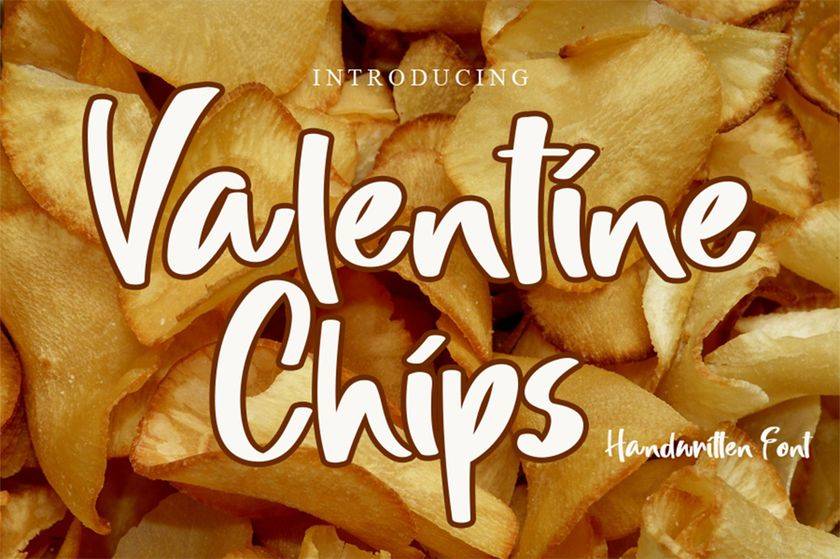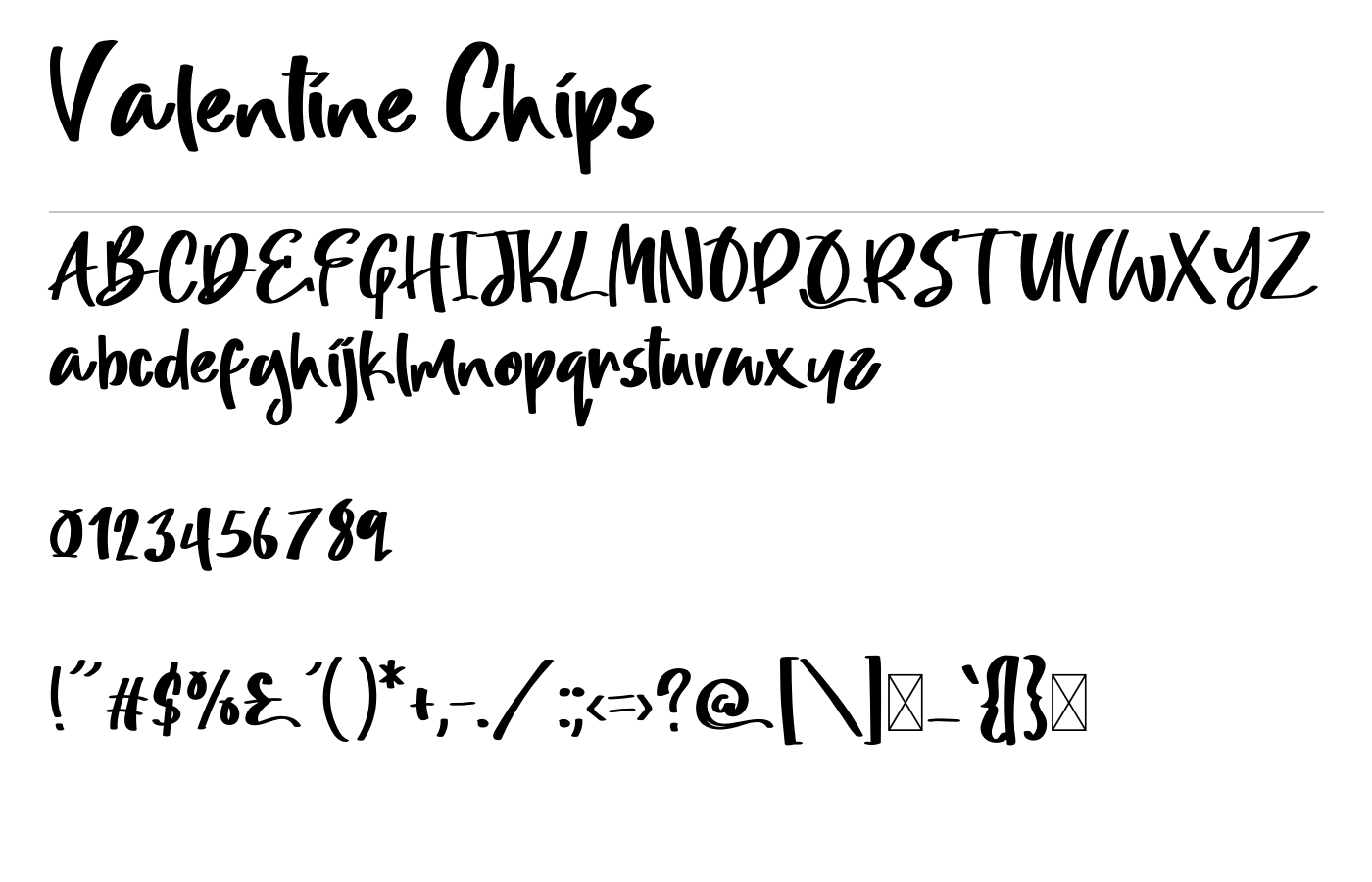
Valentine Chips is a lively handwritten script font that combines casual charm with a bold, brush-like texture. Its playful, slightly irregular letterforms and medium contrast strokes give it an approachable and friendly feel, making it ideal for creative projects, branding, and informal headlines where a personal touch is desired. This font works beautifully in designs that aim to convey warmth and spontaneity, such as greeting cards, social media graphics, and youthful packaging.
Valentine Chips Font
About Valentine Chips Font